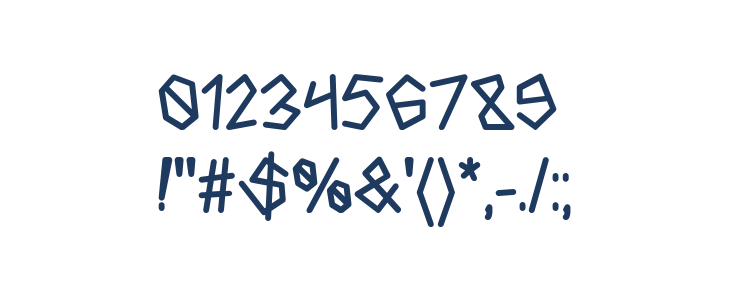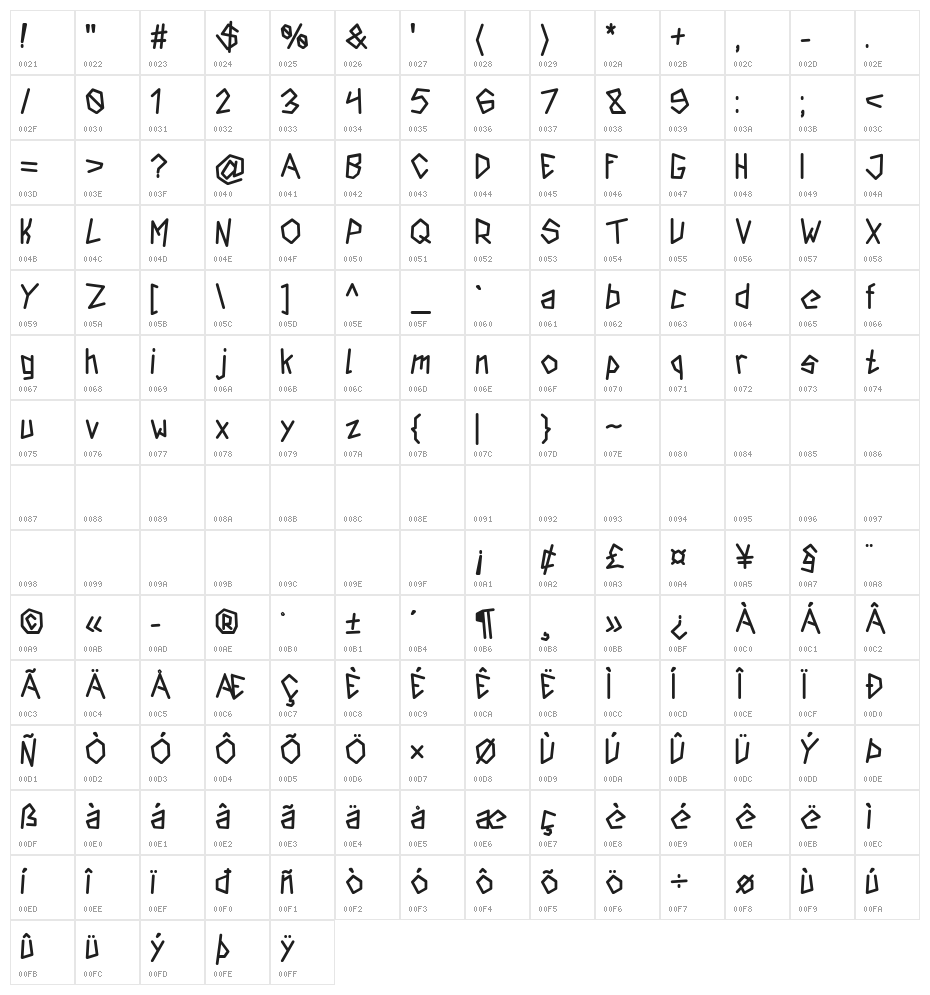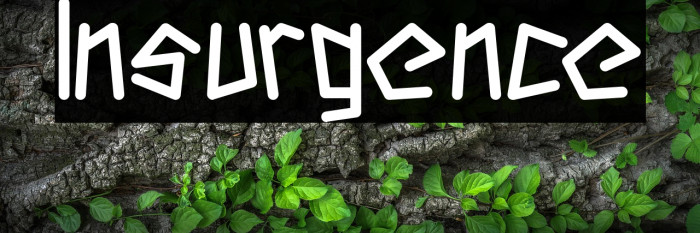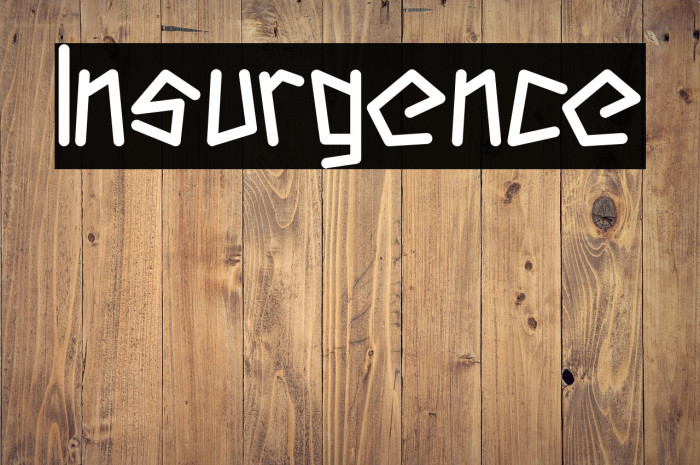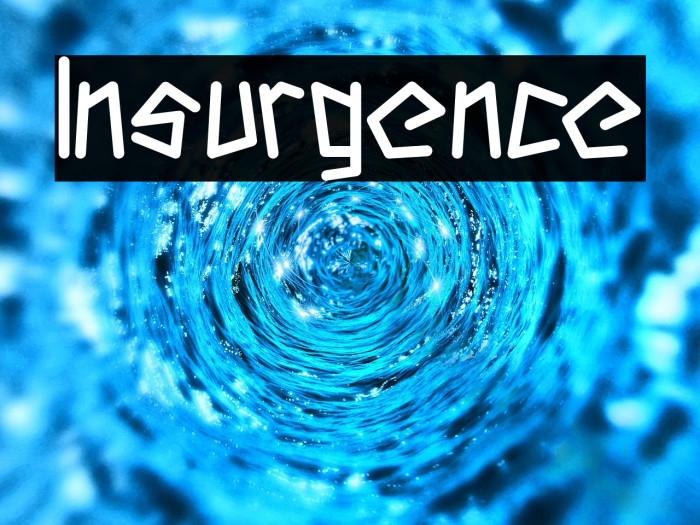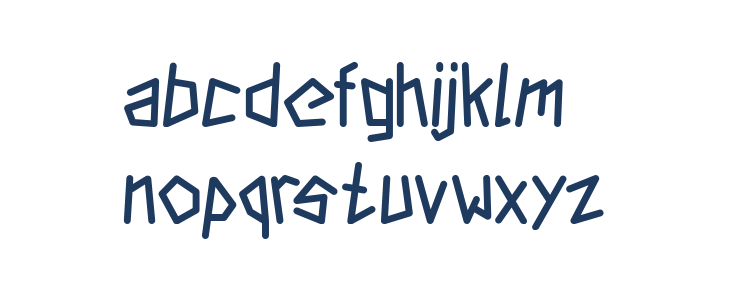
Insurgence Font
Insurgence Description
This font features a bold, angular design with a hand-drawn aesthetic. The characters are constructed with thick, uniform strokes that give a sense of strength and stability. The uppercase and lowercase letters maintain a consistent style, with sharp edges and geometric forms. Numbers and special characters follow the same design principles, ensuring a cohesive look across all glyphs. The font's unique style is reminiscent of graffiti or street art, making it stand out with its rebellious and edgy appearance.
| Overall Style | Modern, Edgy |
| Proposed Projects | Ideal for street art-inspired designs, edgy branding, posters, album covers, and any project needing a bold, rebellious touch. |